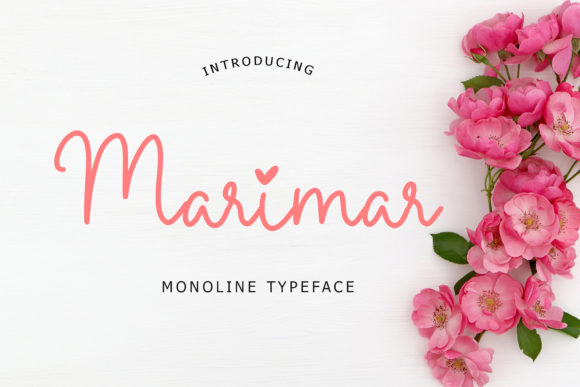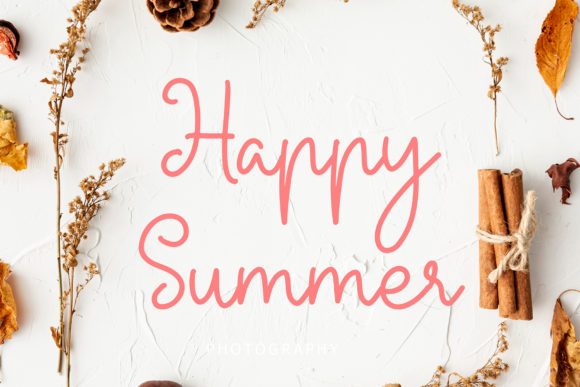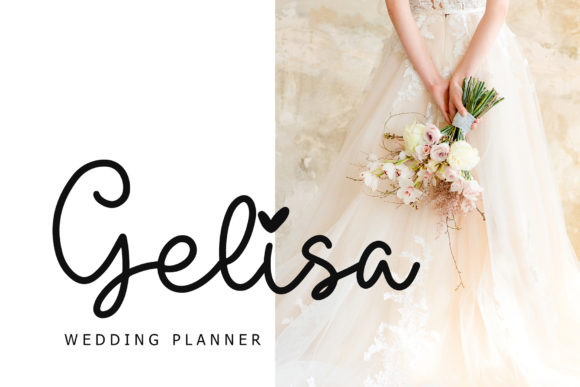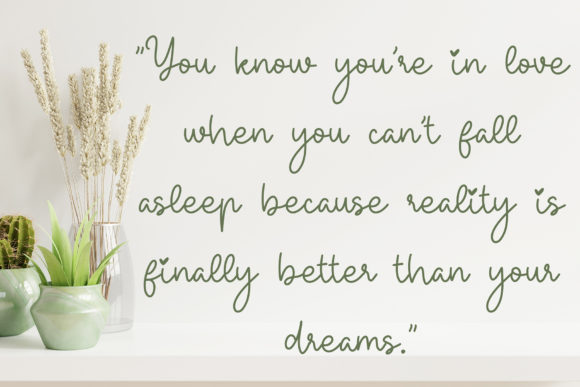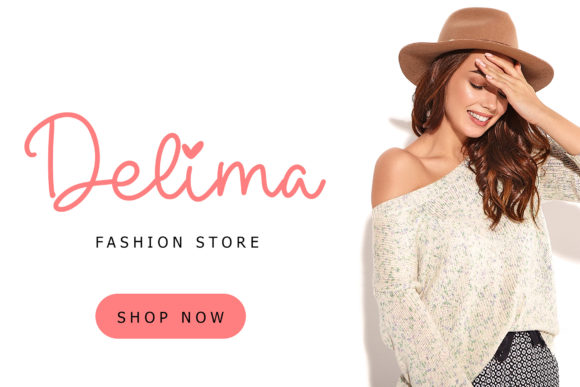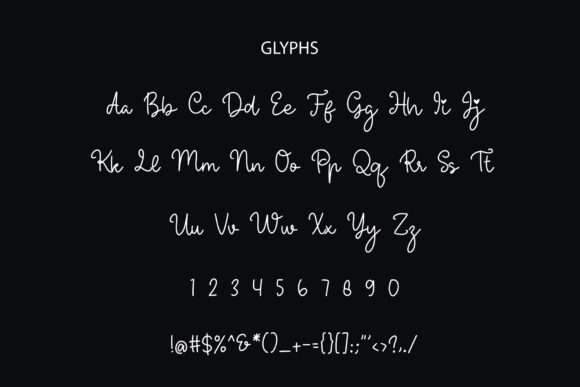
Marimar Font
About Marimar Font
Marimar is an exciting calligraphy font with a monoline style. Fall in love with its elegantly playful nature and use it to each of your favorite designs!